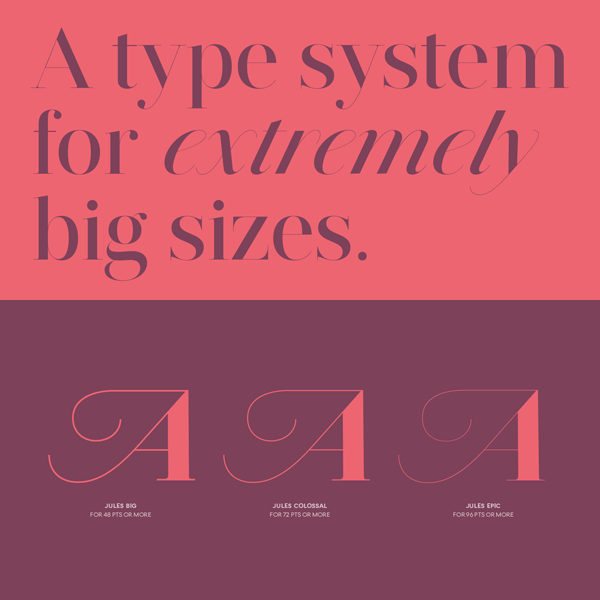
Jules font family, a 2015 release of a Didonic display type system from DSType foundry.
The Jules font family has been designed by Dino dos Santos and Pedro Leal for foundry DSType in 2015. It’s a Didonic variation with plenty of extraordinary features and a very special touch. This elegant display font has been designed for extremely big sizes. Its elegant look refers to classic serif font designs from the late 18th century. Jules’ characteristic forms are heavily inspired by the beautiful work of portuguese calligrapher, Antonio Jacintho de Araujo.
The Jules font family comes with three different optical sizes (Big, Colossal, Epic) plus diverse alternative versions, ligatures, matching Italics, and a special Swashes version with an even more elegant style. As already mentioned, the Jules font family works best for large display sizes. The type designers, Dino dos Santos and Pedro Leal recommend to choose ‘Jules Big’ for 48pt sizes or higher, ‘Colossal’ for 72pt sizes or higher, and ‘Epic’ for 96pt sizes and higher. You can use it for striking headlines on signage, posters, or billboards. These elegant typeface gives your design a classic vintage touch. Jules can also be a great choice for large titles in web design applications. Therefor, the family is available as both conventional desktop font and webfont. For additional information, please follow the link below.